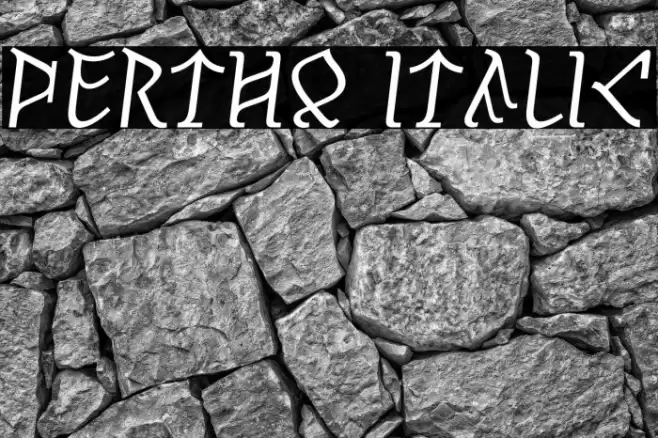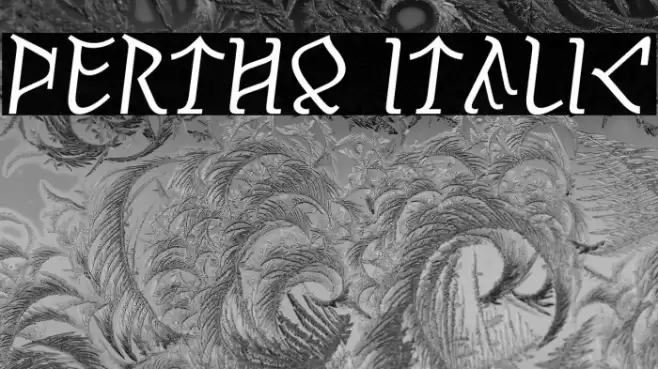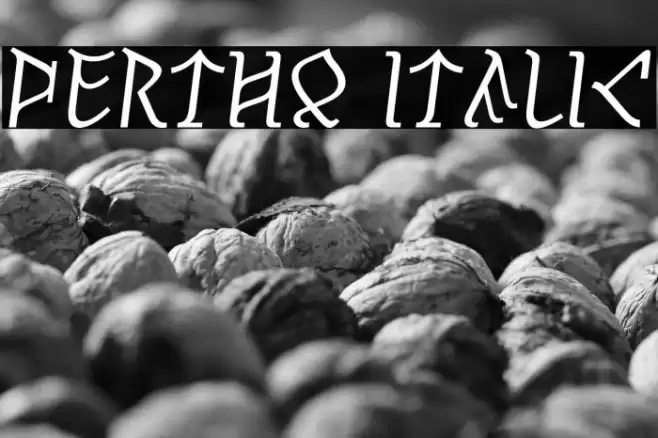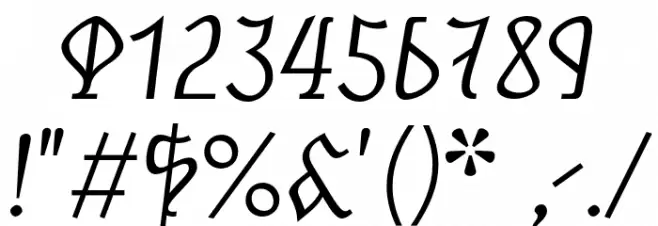
Pertho Italic Font
Pertho Italic Description
This font exhibits a unique and artistic style, characterized by its flowing, italicized letterforms that convey a sense of movement and elegance. The uppercase and lowercase letters maintain a consistent slant, enhancing the dynamic appearance. The strokes are moderately thick, providing a balanced contrast that ensures readability while maintaining a decorative flair. The numbers and special characters are crafted with the same attention to detail, ensuring a cohesive look across all glyphs. This font's distinctiveness makes it suitable for creative projects where a touch of sophistication and individuality is desired.
An artistic, italicized font with flowing, dynamic letterforms from Uncategorized fonts.